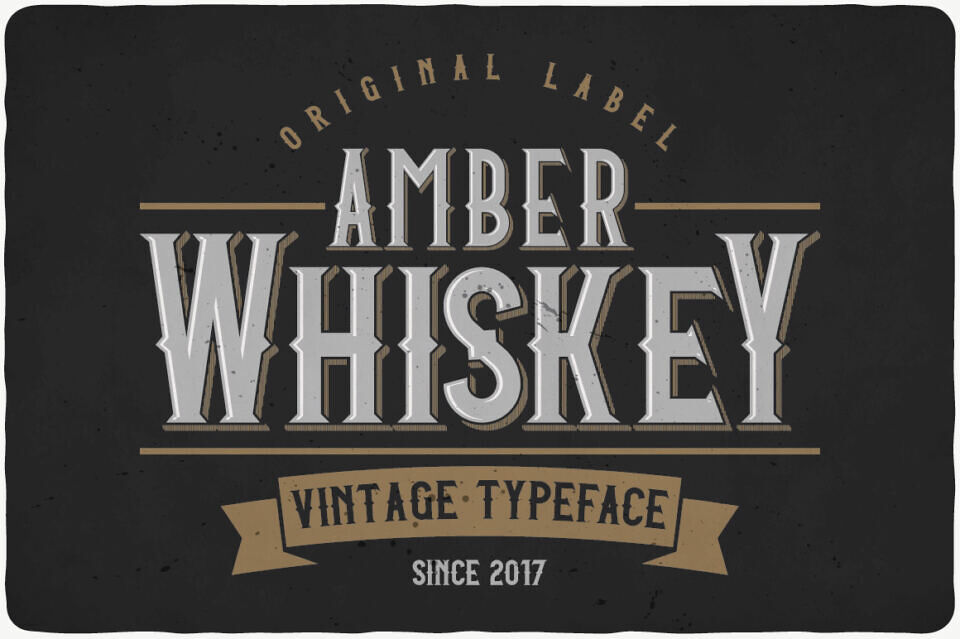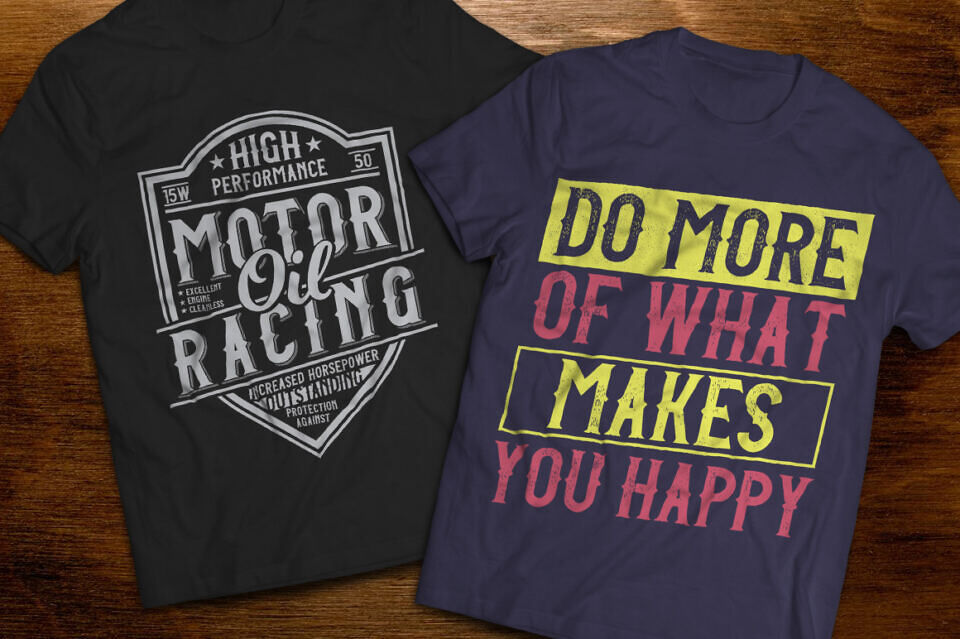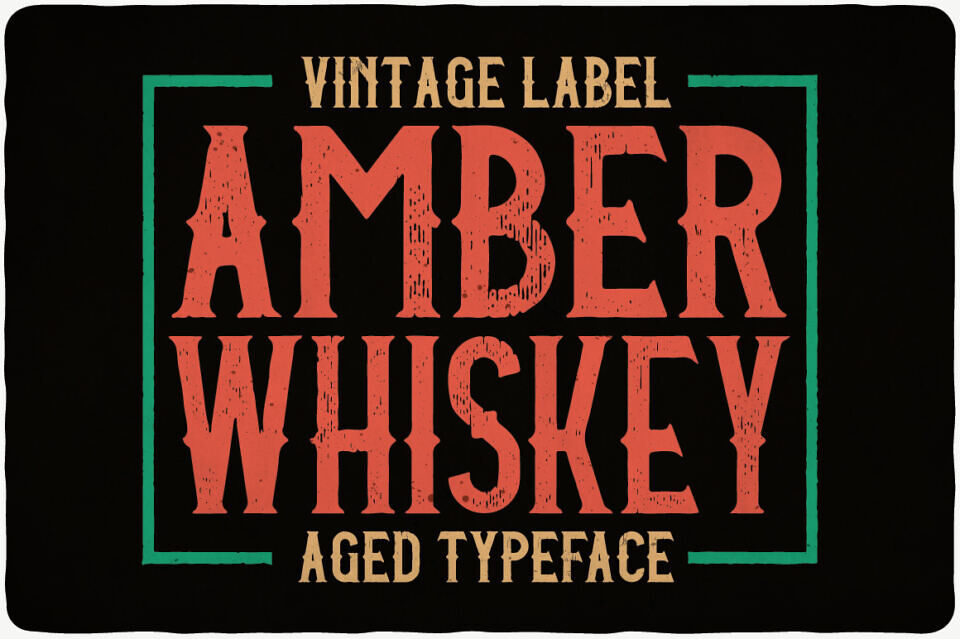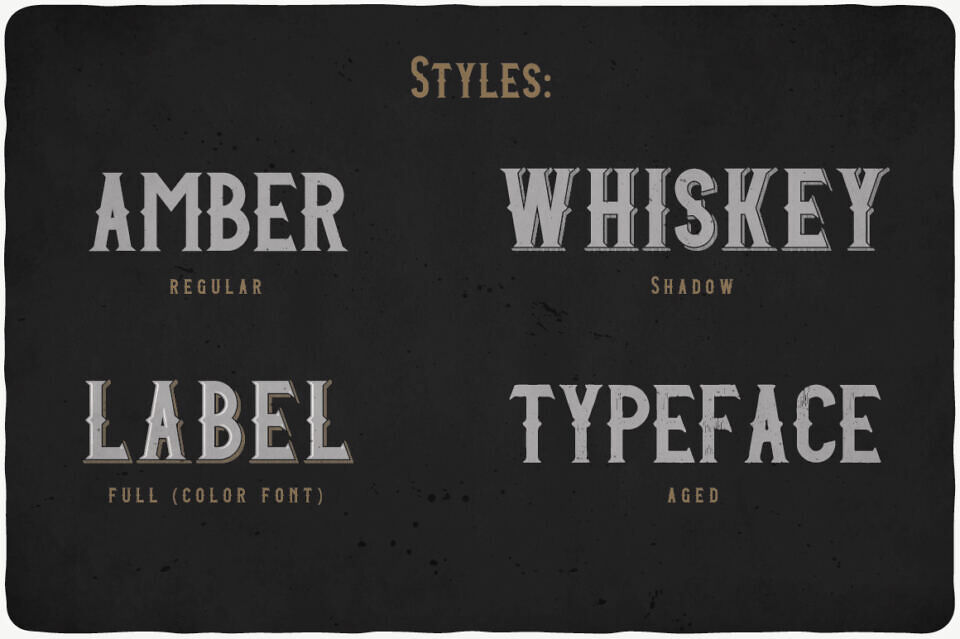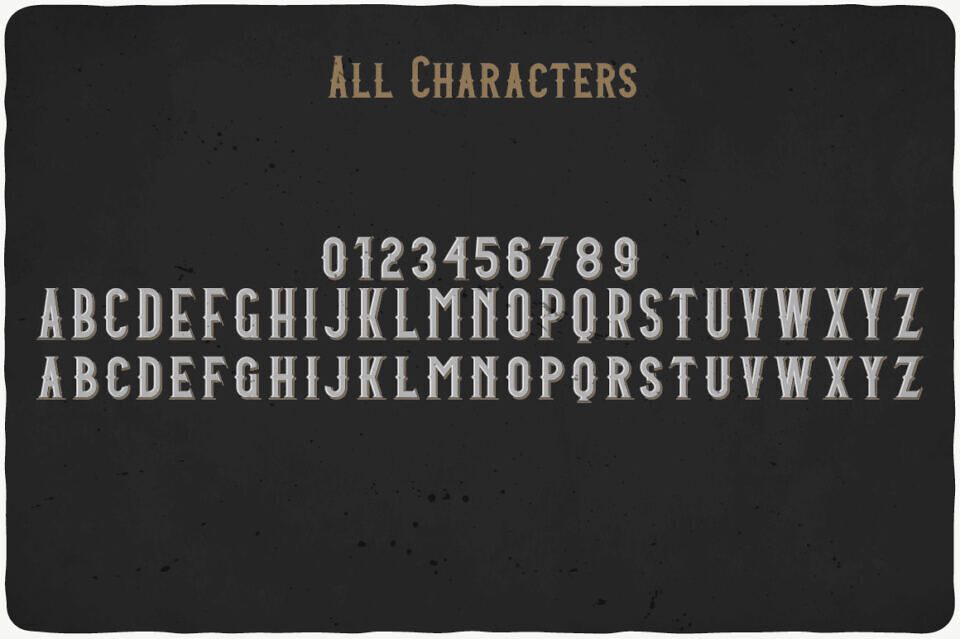
Amber Whiskey Font
Amber Whiskey is a bold and vintage styled display font. Sophisticated, imposing and thick lettered, this font will be an incredibly asset to your fonts’ library, as it has the potential to elevate any creation.
This typeface includes four styles: Regular, Aged, Shadow, Full Color.